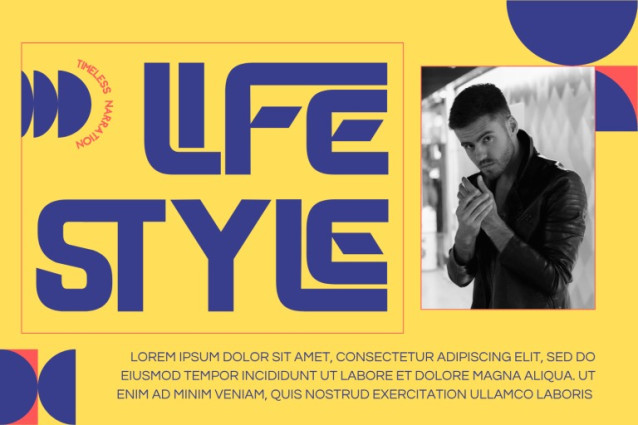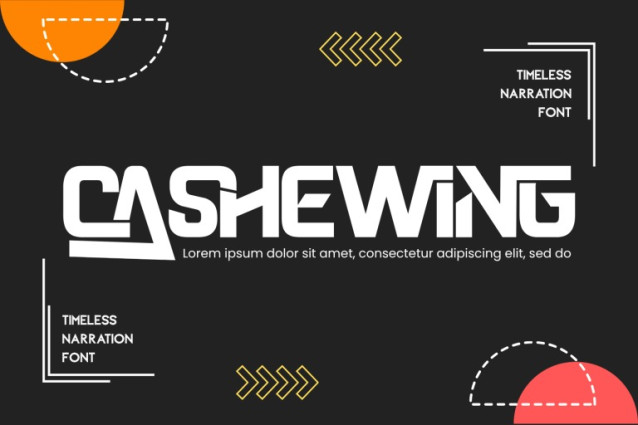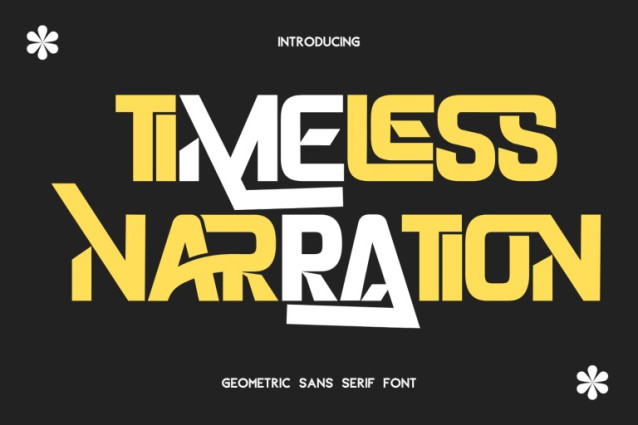
Timeless Narration Font
Timeless Narration – Futuristic Font, a bold and futuristic modular display font that redefines geometric typography. With its strong letterforms, layered composition, and sharp visual rhythm, this font delivers a powerful and modern aesthetic suitable for branding, posters, logos, games, or digital artwork.